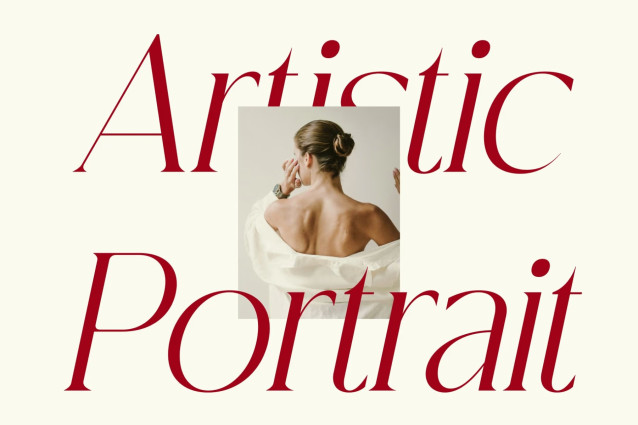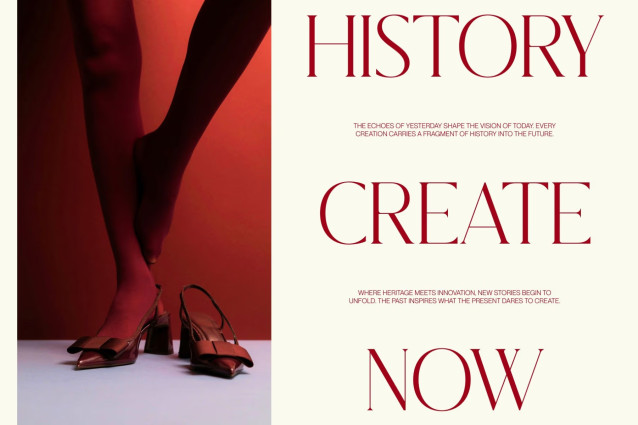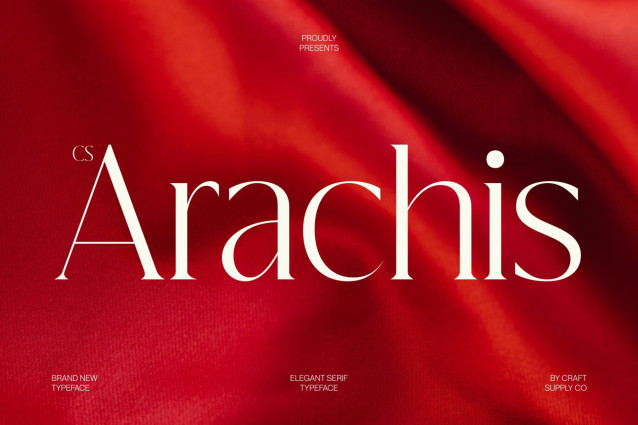
CS Arachis – Elegant Serif Font
CS Arachis – Elegant Serif Font: Where Graceful Contrast Meets Timeless Luxury
Refined Curves with Elongated Details
This is an elegant serif font defined by its refined curves and graceful elongated details, creating a sophisticated and luxurious visual identity. Its carefully crafted letterforms feature beautiful contrast between delicate and bold strokes, delivering a polished appearance that feels both expressive and timeless. Every character is designed to evoke elegance while maintaining exceptional clarity and balance.
Beautiful Contrast with Contemporary Elegance
This font achieves a harmonious balance between tradition and contemporary style. Its elongated details enhance the sense of rhythm and sophistication, while the refined stroke contrast adds depth and visual interest. The result is typography that feels graceful, distinctive, and perfectly suited for premium design.